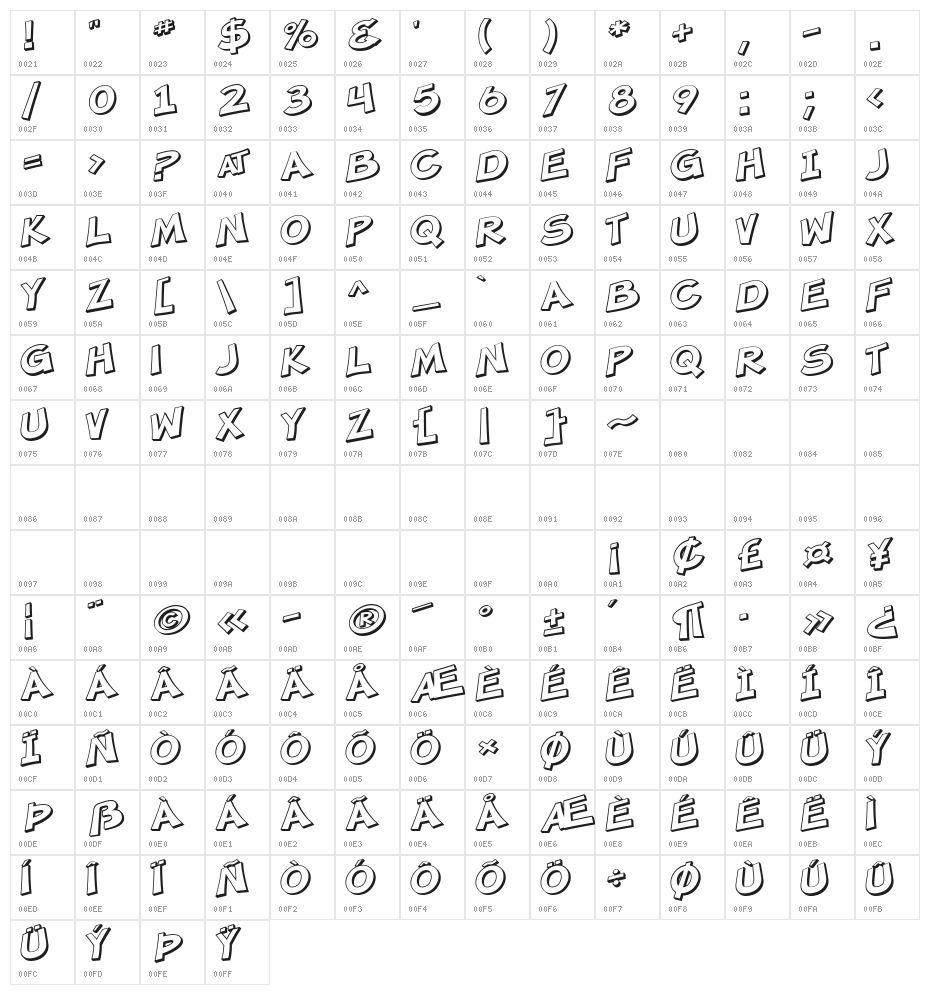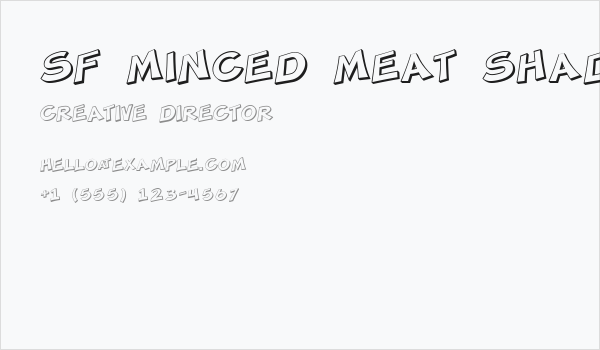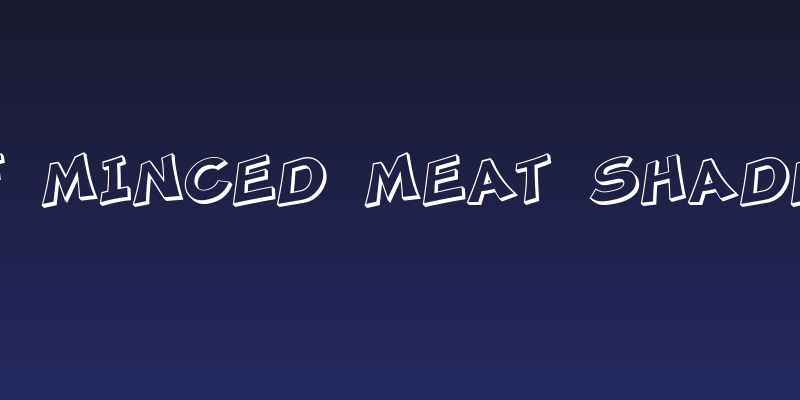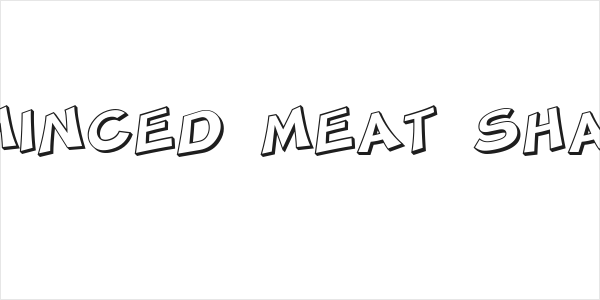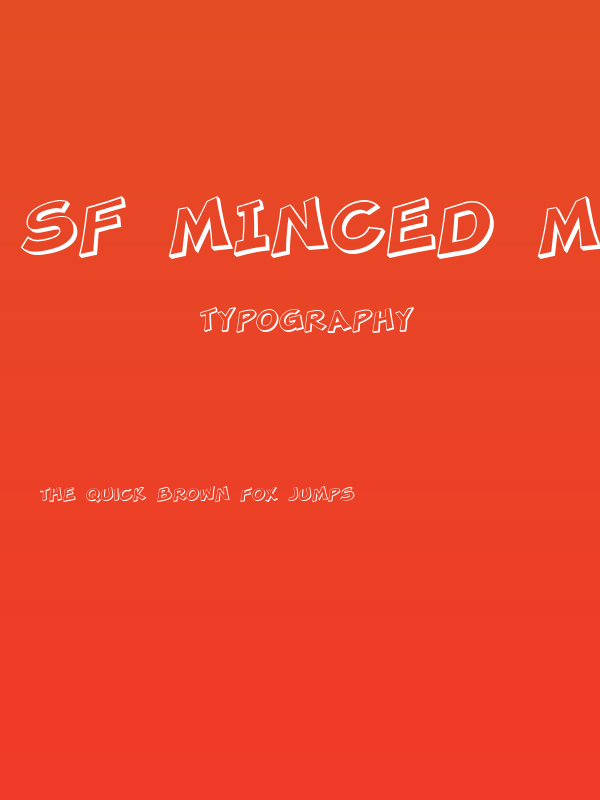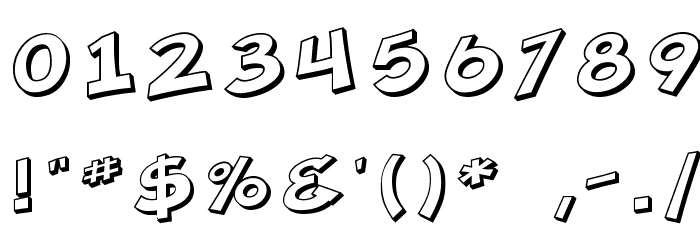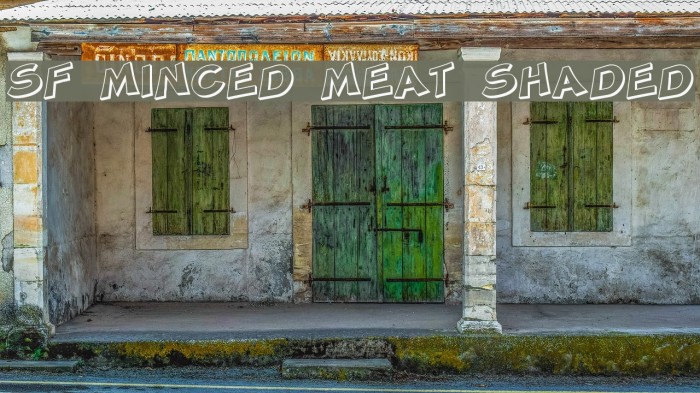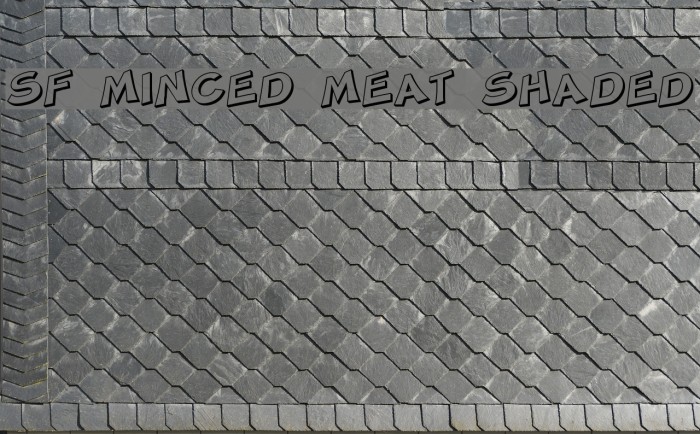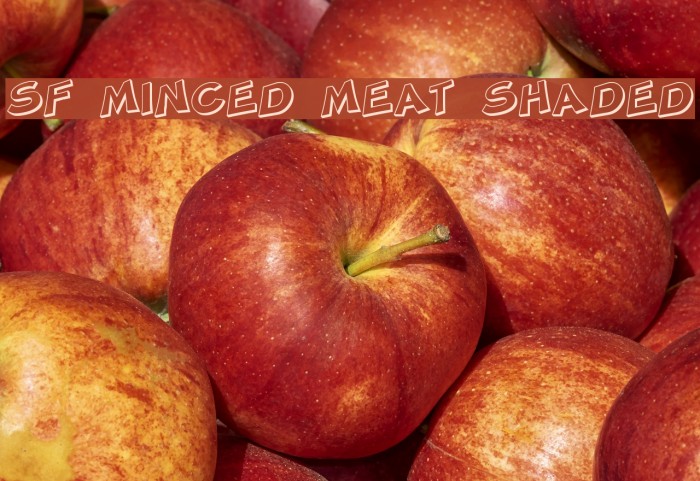
SF Minced Meat Shaded Font
SF Minced Meat Shaded Description
This font features a bold, playful style with a three-dimensional shaded effect that gives it a dynamic and eye-catching appearance. The letters are uppercase and have a cartoonish, informal vibe, making them ideal for projects that require a fun and engaging look. The numbers and special characters maintain the same lively aesthetic, ensuring consistency across all text elements. The font's thick strokes and shadowing create a sense of depth, making it stand out in any design.
| Overall Style | Playful, Cartoonish |
| Use Case | Headlines, Posters, Branding |
| Proposed Projects | Ideal for comic books, children's books, posters, and playful branding projects. |